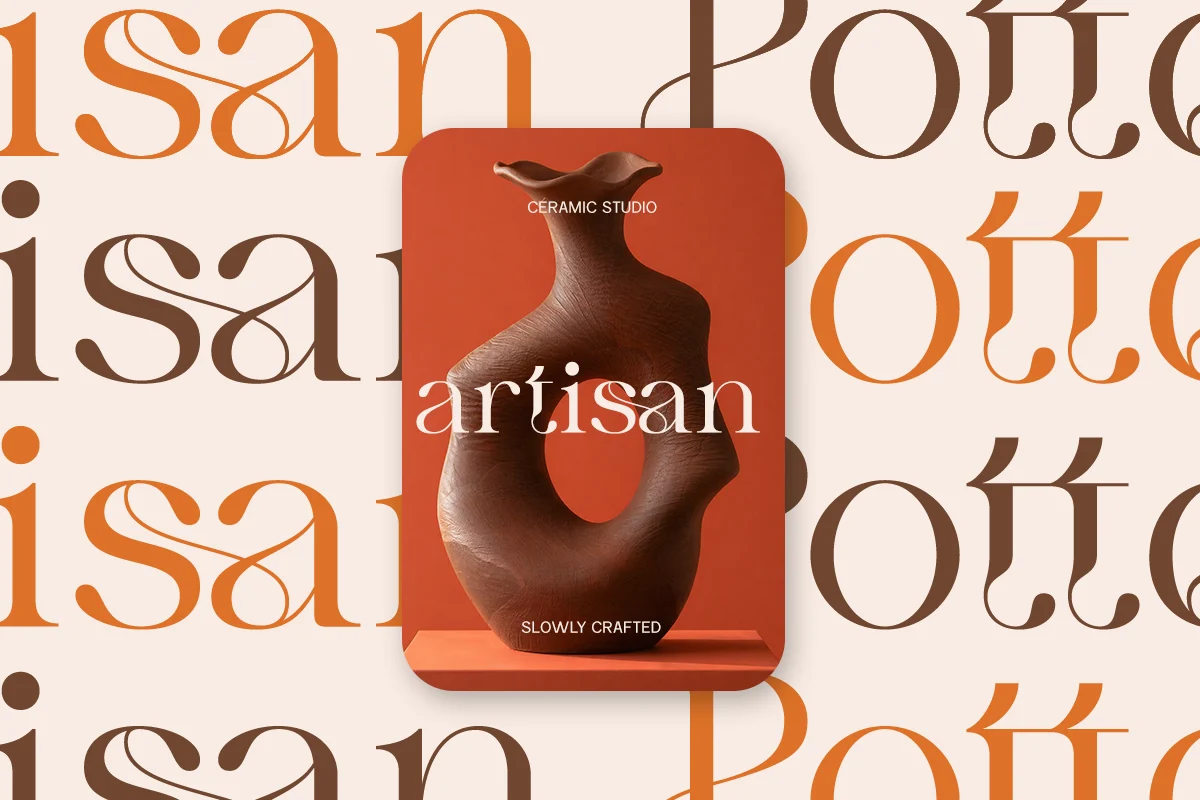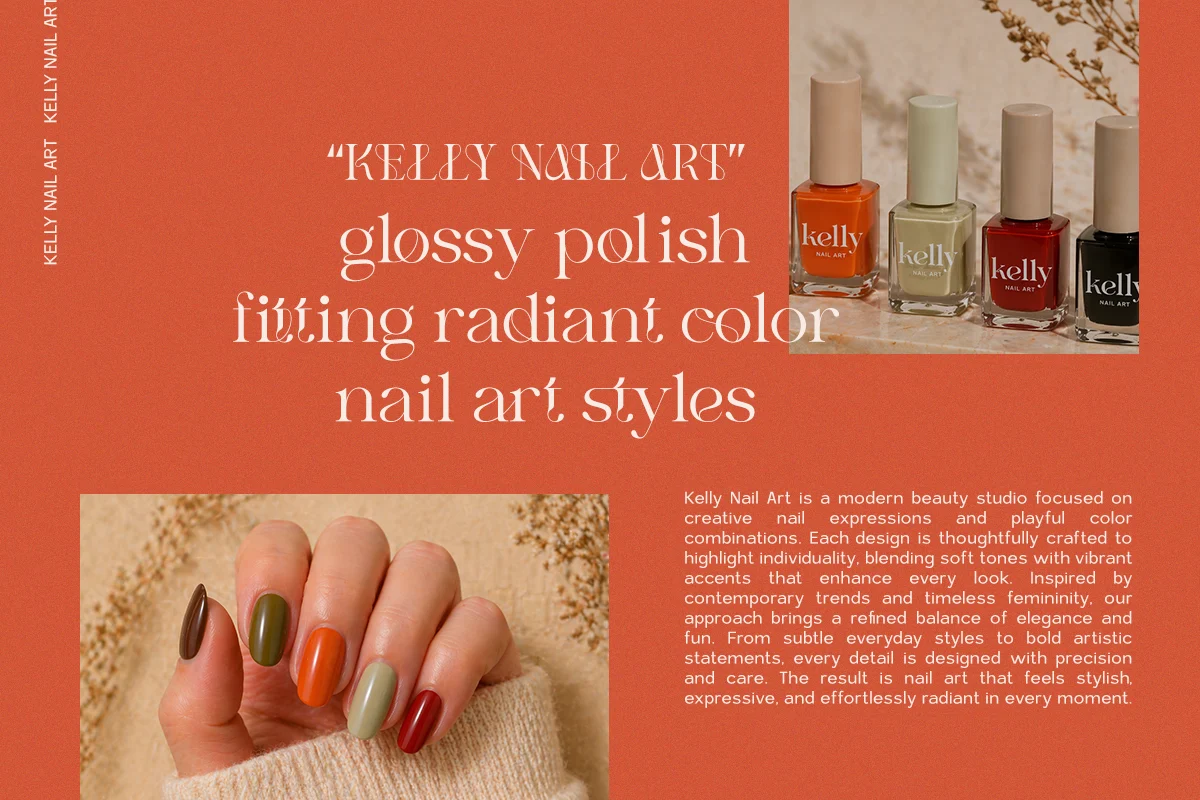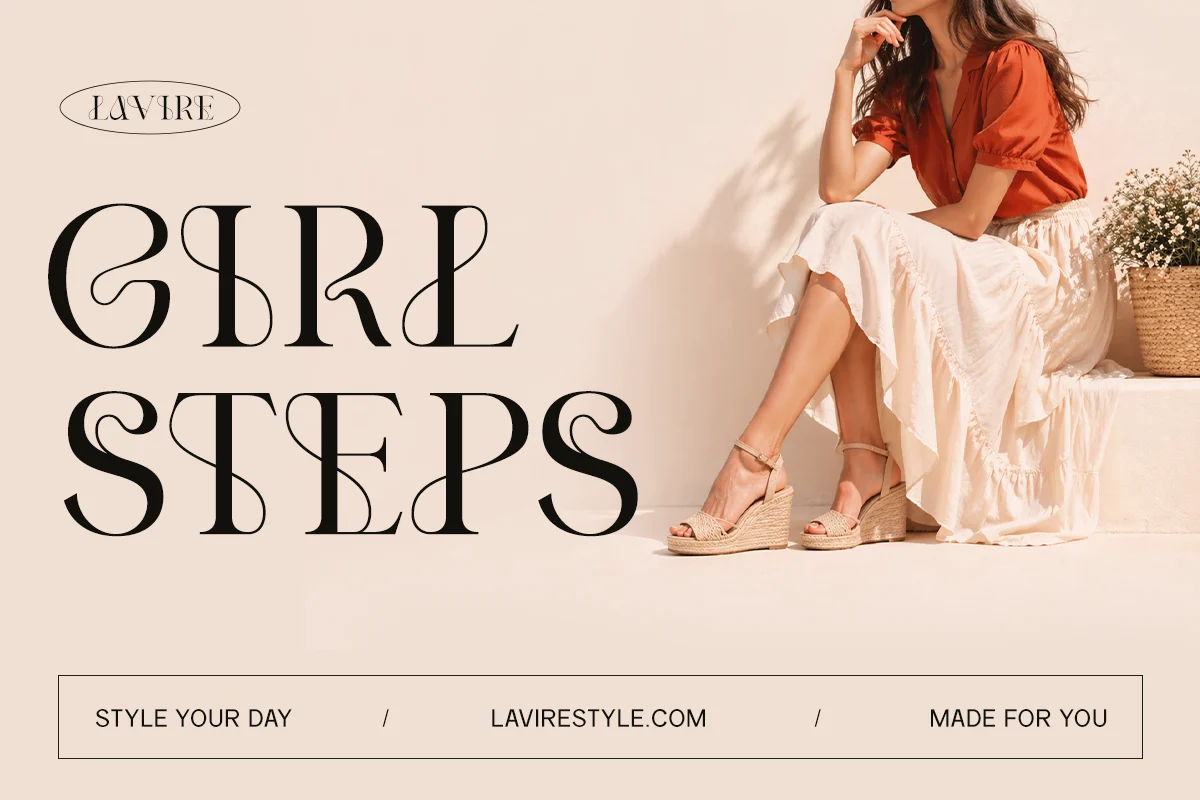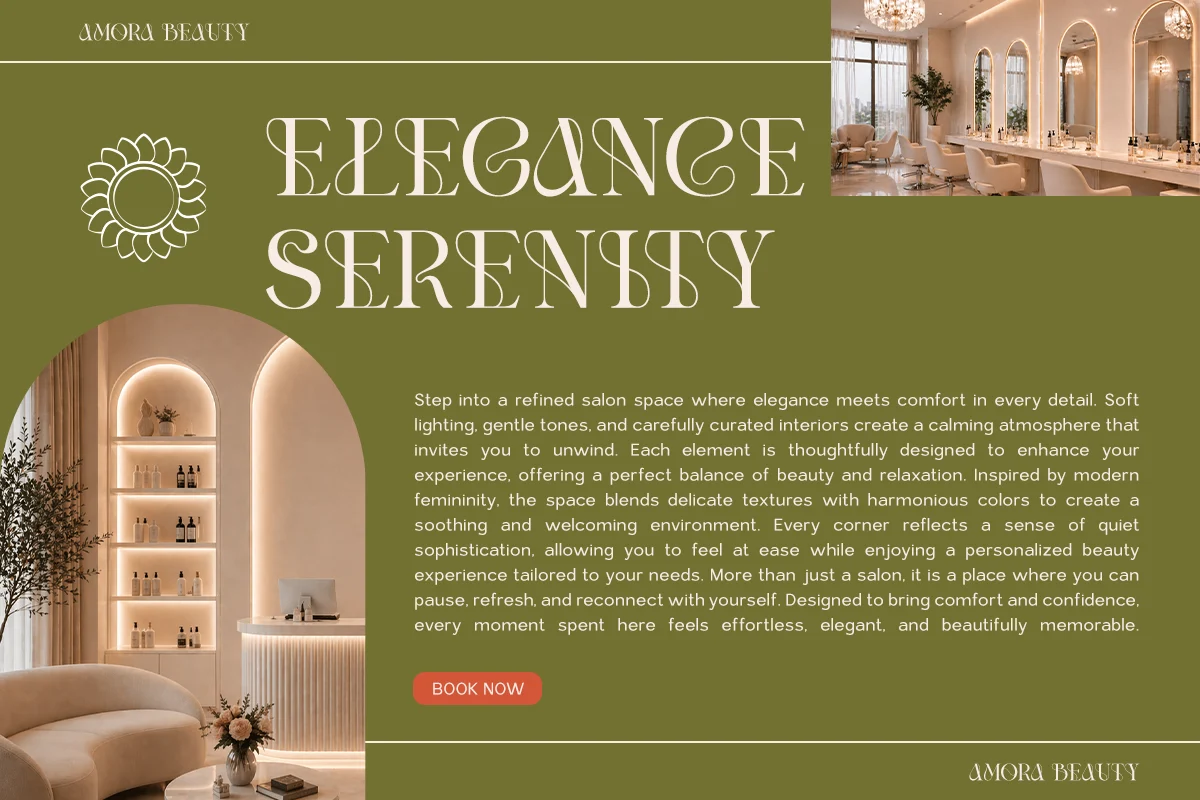
Fashion Ligature Serif Font – Abrasia
Abrasia is a Ligature serif font designed to bring elegance, fluidity, and artistic expression into contemporary typography. Its distinctive letterforms feature graceful curves and refined ligatures that create a seamless and sophisticated visual rhythm. The combination of classic serif structure and modern styling makes Abrasia stand out as a unique and memorable typeface.
Perfect for high-end branding, editorial layouts, fashion campaigns, and luxury packaging, Abrasia delivers a polished and premium aesthetic. Its expressive ligatures allow designers to craft visually rich typography with a custom-made feel, making it ideal for logos, magazines, beauty brands, and social media visuals that demand elegance and personality.
With carefully crafted details and balanced proportions, Abrasia ensures readability while maintaining its decorative charm. Whether used for headlines or refined branding projects, this font offers versatility and style, making it a valuable asset for designers seeking a modern serif with a luxurious touch.